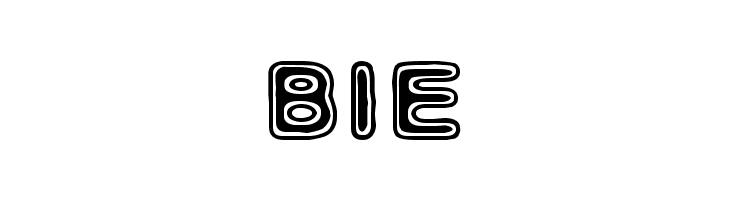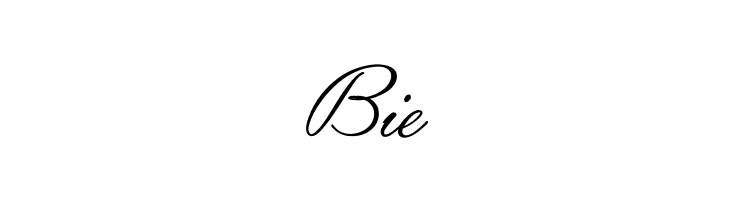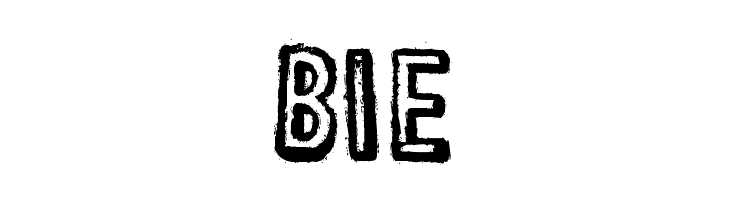
• Concielian 3D Italic
A futuristic 3D italic font with outlined characters and a dynamic, modern style.
• CrimeFighter BB Bold
A bold, dynamic script font with fluid, connected letterforms.
• Hip Pocket 3D Italic
A bold, 3D outlined font with a playful and dynamic style.
• Rubber Boy 3D Regular
A bold, playful 3D font with a puffy, cartoonish style and prominent outlines.
• NEO PROTEIN
A bold, decorative font with playful cut-out patterns in each character.
• PWFlymetothemoon
A playful, hanging-style font with bold, rounded characters.
• CF Robert Nelson Regular
A distressed, vintage-style font with a bold, rugged appearance.
• Any Takers Regular
A bold, brush-style font with a hand-drawn, artistic appearance.
• MiltonOne
An elegant script font with flowing, cursive lines and ornate details.
• HelloScript
An elegant and decorative script font with ornate swashes.